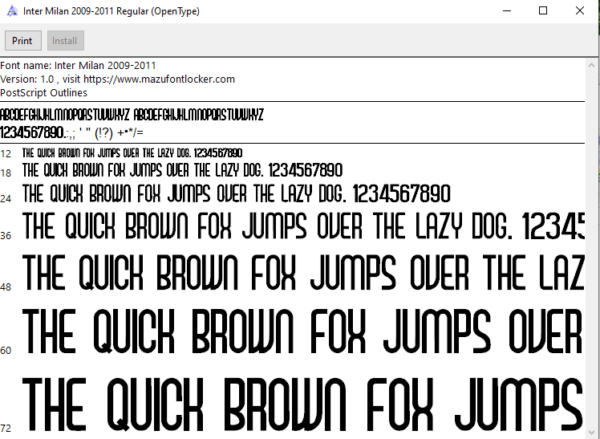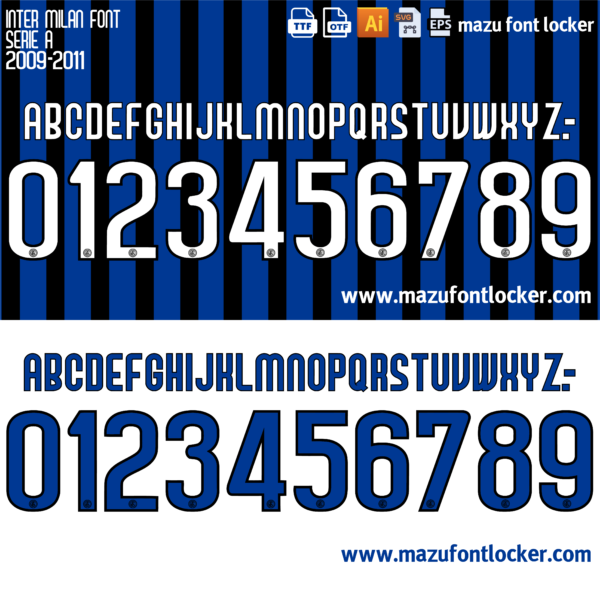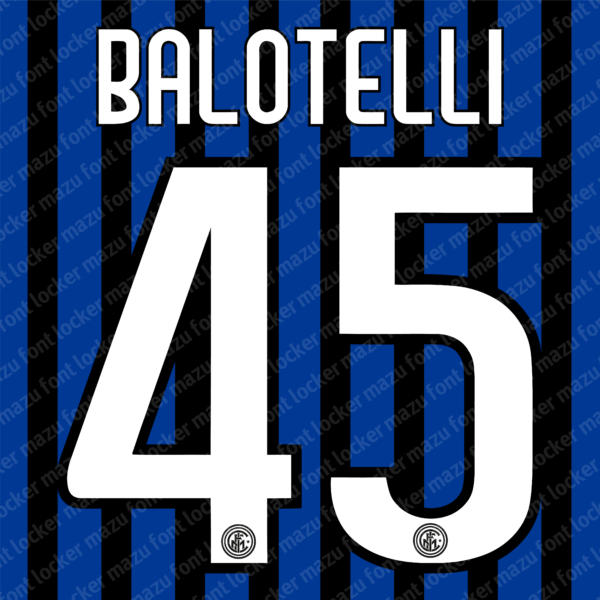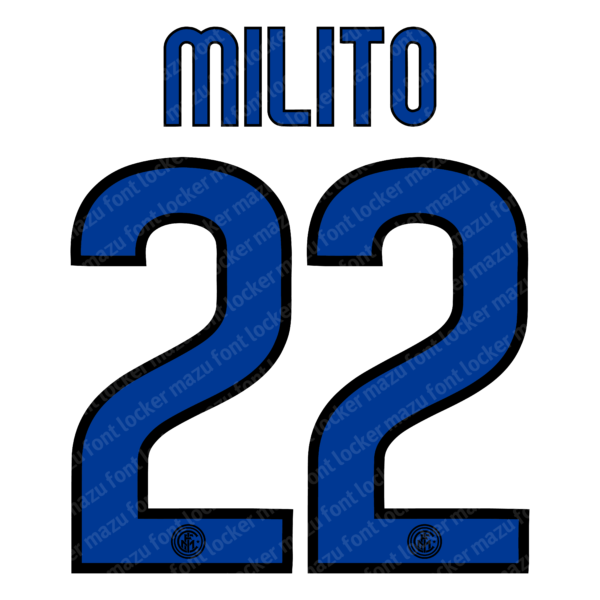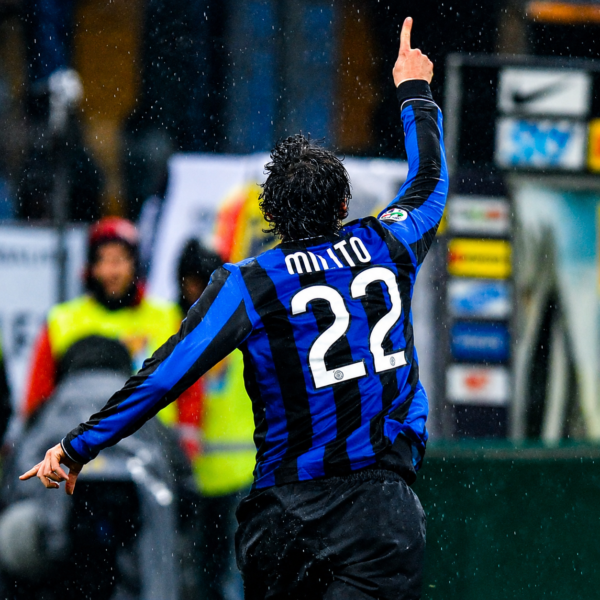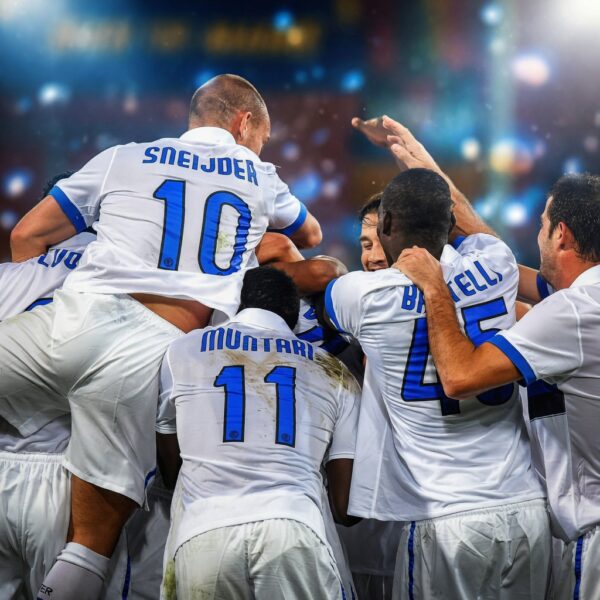
Inter Milan 2009-2011 Font Vector – Legendary Nerazzurri Masterpiece
Download Inter Milan 2009-2011 Font now and bring the golden era of Mourinho’s legendary Inter straight into your designs. This premium Inter Milan 2009-2011 Font perfectly captures the bold, powerful, and iconic typography used during the unforgettable Treble-winning season. Whether you’re creating football posters, fan merchandise, social media graphics, or branding materials, Inter Milan 2009-2011 Font delivers that authentic Italian passion and championship energy.
Every letter is meticulously crafted to reflect the strength and elegance of the Nerazzurri squad that dominated Europe. The sharp edges and commanding presence make Inter Milan 2009-2011 Font the ultimate choice for designers who want to stand out. Compatible with Photoshop, Illustrator, and Canva, this vector font ensures crisp quality at any size.
The Inter Milan 2009-2011 Font is a premium, high-precision football jersey font vector meticulously engineered to capture the fearless dominance, explosive passion, and electrifying identity of Inter Milan’s legendary 2009-2011 era.
Inspired by the mighty Nerazzurri and their iconic, high-intensity performances throughout the unforgettable 2009-2011 seasons, this font unleashes a bold, majestic, and devastatingly powerful presence that radiates unbreakable Inter pride, rich heritage, and unstoppable champion spirit. Every letter and number has been painstakingly recreated with razor-sharp precision to embody the vibrant black and blue identity, relentless winning mentality, and glorious legacy that makes Inter Milan one of the most dominant and feared forces in European football.
• Authentic 2009-2011 Inter Milan jersey lettering style
The authentic lettering style helps recreate the classic look of the Inter Milan 2009-2011 kit with professional accuracy.
Unlike generic jersey fonts, this set is designed with a strong focus on authenticity and accuracy. Every detail is based on the original match lettering style used during the Inter Milan 2009-2011, helping designers and collectors create realistic football shirt designs.
This Inter Milan 2009-2011 font vector set is designed for authentic football jersey customization and works perfectly for retro football projects, collector designs, and professional sportswear artwork.